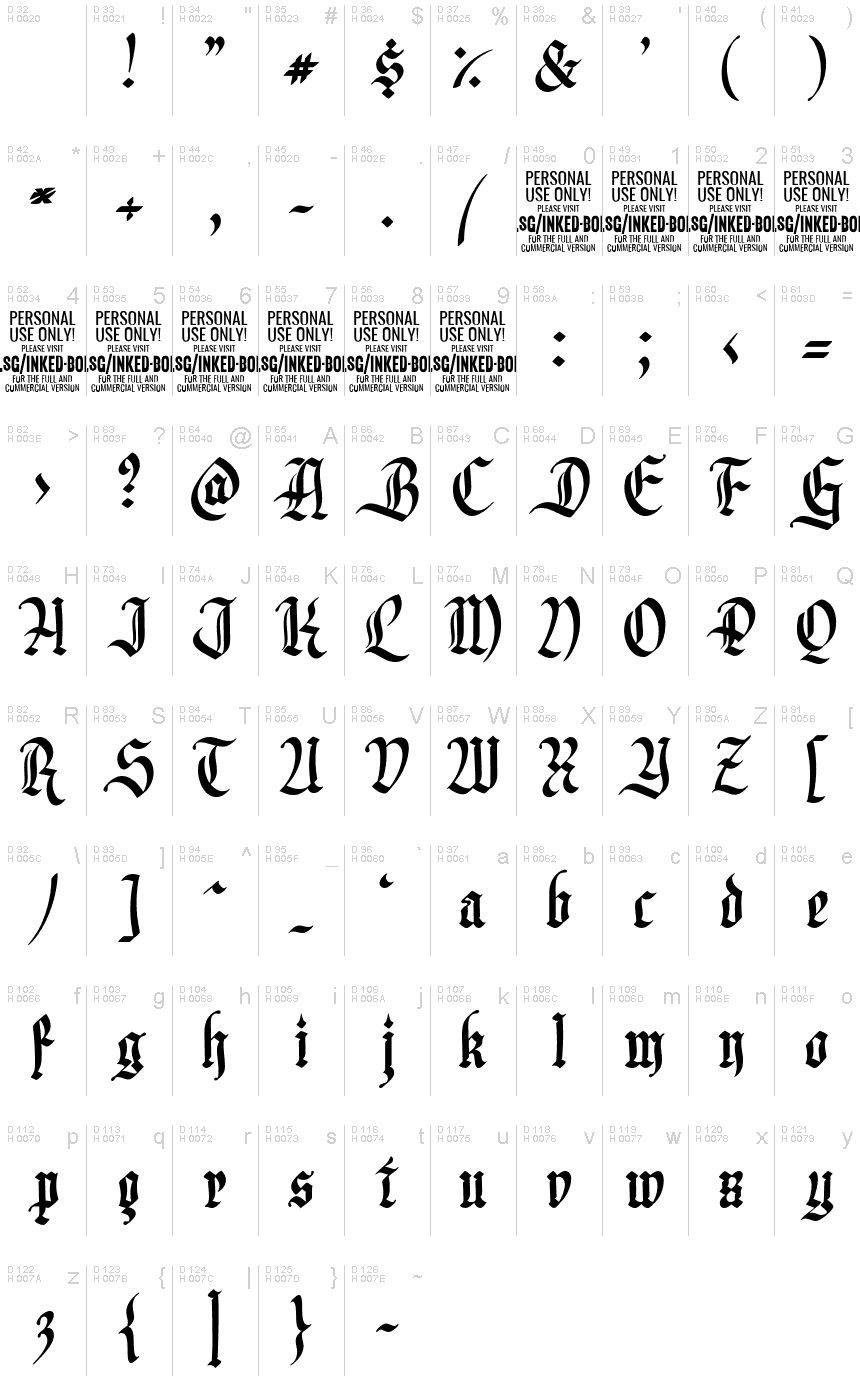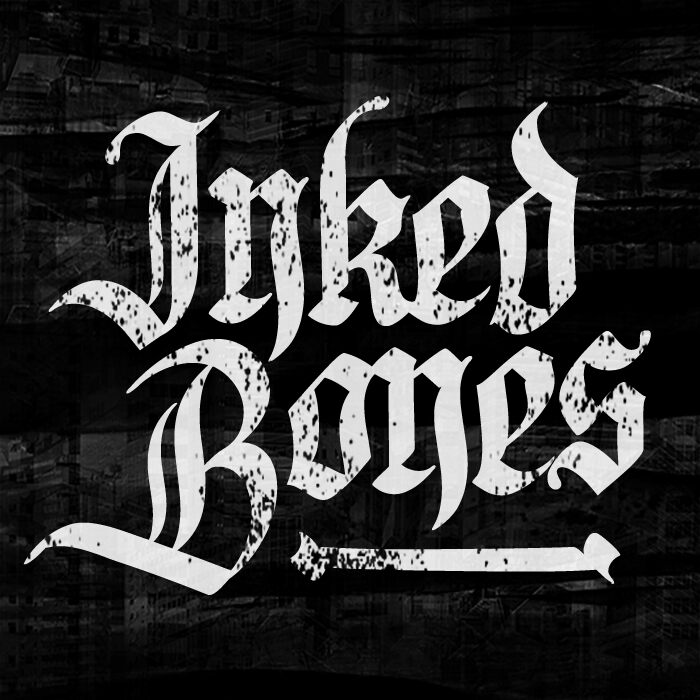
Inked Bones, the mesmerizing creation by renowned font designer Mans Greback, is a gothic masterpiece that exudes a medieval charm. With its semi-light weight and condensed width, this font is perfect for adding an enigmatic touch to your projects. From dark fantasy novels and historical documentaries to tattoo designs and metal band logos, Inked Bones sets the stage for captivating storytelling and unleashes a mystical aura. Its intricate details and unique style make it an ideal choice for any project seeking to evoke an atmosphere of mystery, ancient legends, or arcane rituals.